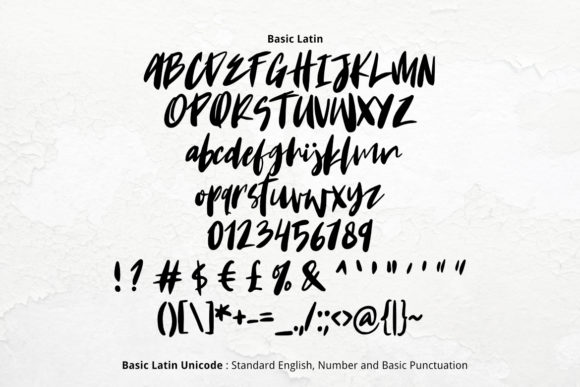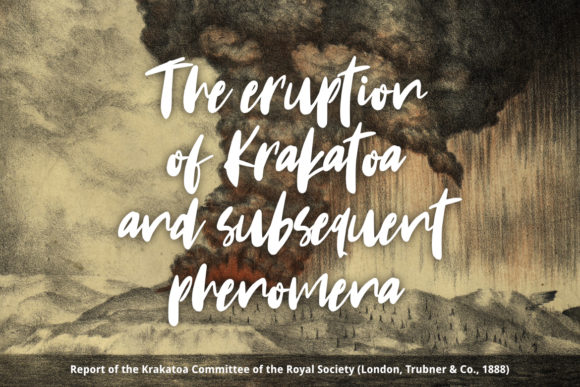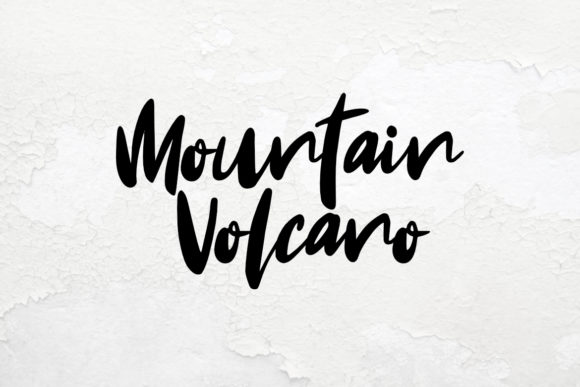
Krakatoa Font
About Krakatoa Font
Krakatoa is a casual, modern handwritten font, created by using a brush pen. Clean and a little bit quirky, this font is the perfect fit for all of your logos, branding, social media, and crafty DIY projects.